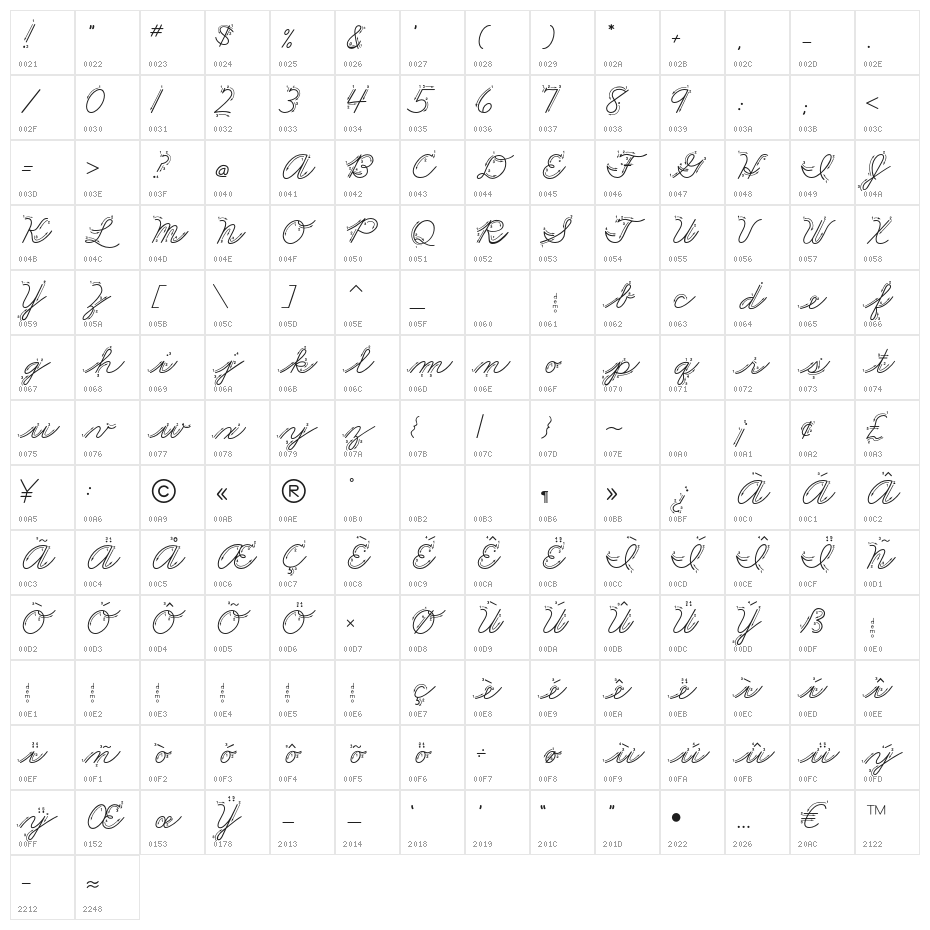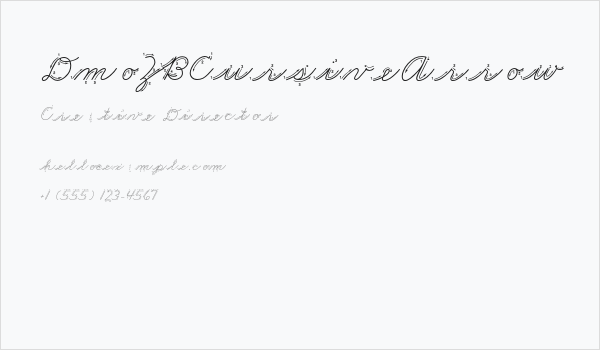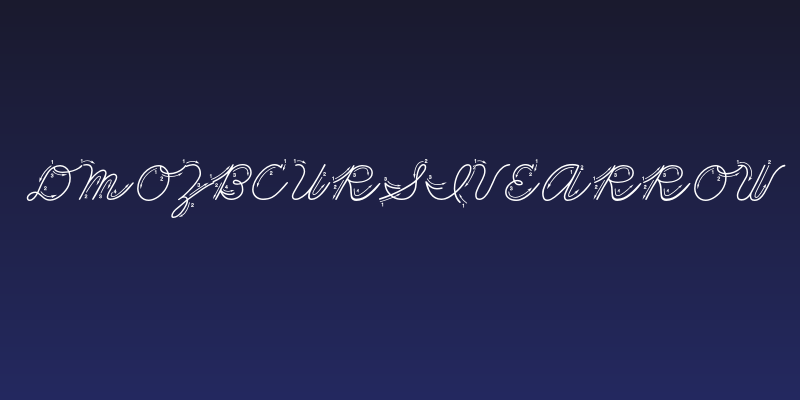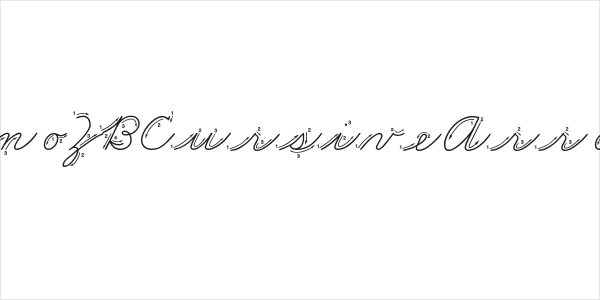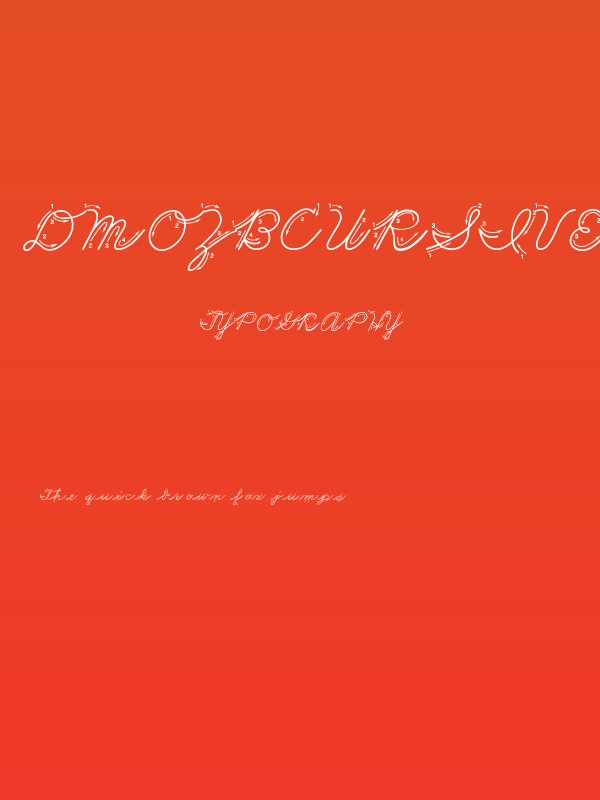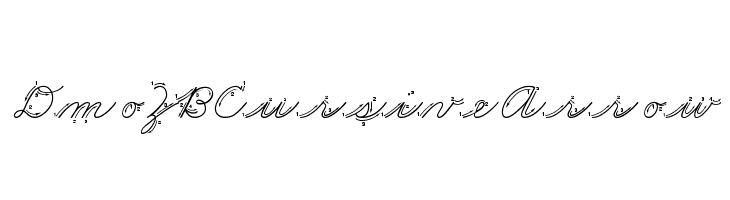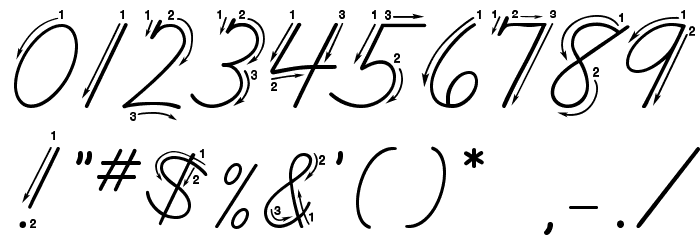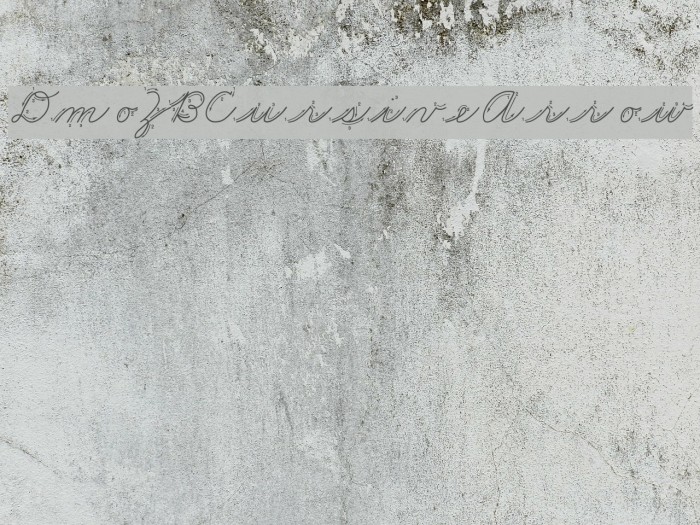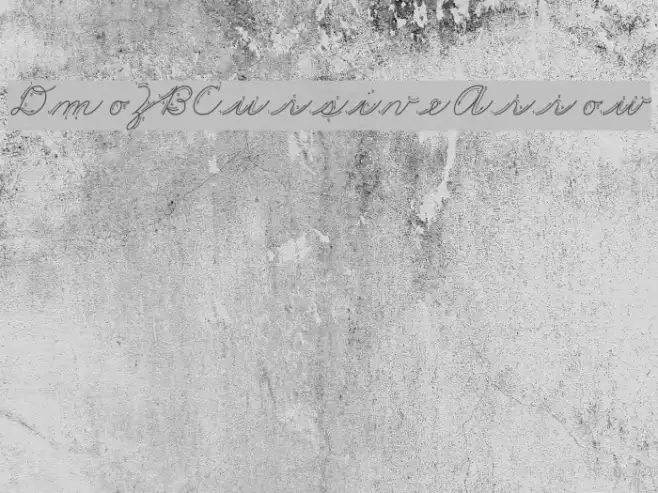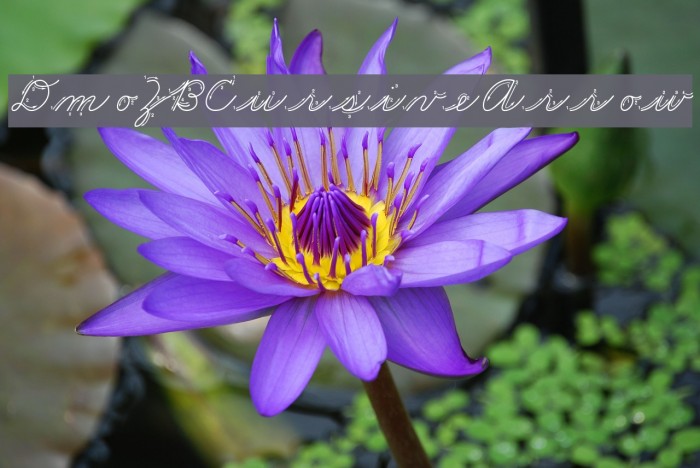
DmoZBCursiveArrow Font
DmoZBCursiveArrow Description
This font features a unique cursive style with decorative arrows integrated into each character, adding a dynamic and playful element. The letters are connected in a flowing manner, reminiscent of traditional cursive handwriting, yet with a modern twist due to the arrow embellishments. The uppercase and lowercase letters maintain a consistent style, ensuring readability while offering an artistic flair. Numbers and special characters are also designed with the same arrow motif, providing a cohesive look across all elements. The font's overall appearance is elegant yet whimsical, making it suitable for creative and expressive projects.
| Use Case | Logos, Invitations, Artistic Posters |
| Proposed Projects | Ideal for creative branding, invitations, greeting cards, and artistic posters where a unique and expressive style is desired. |